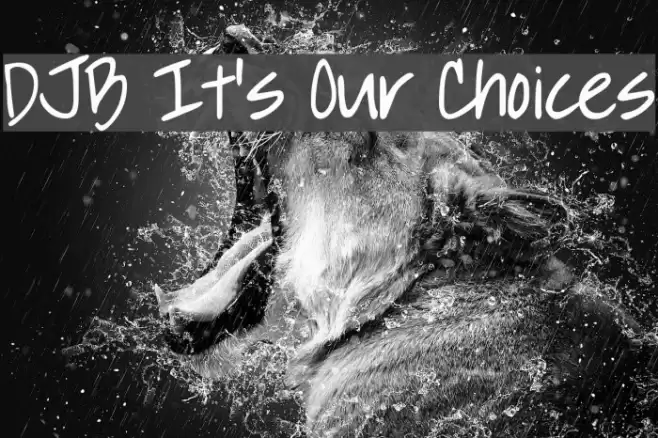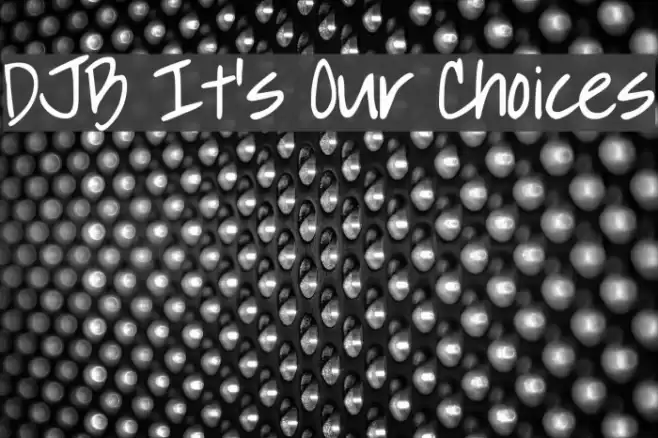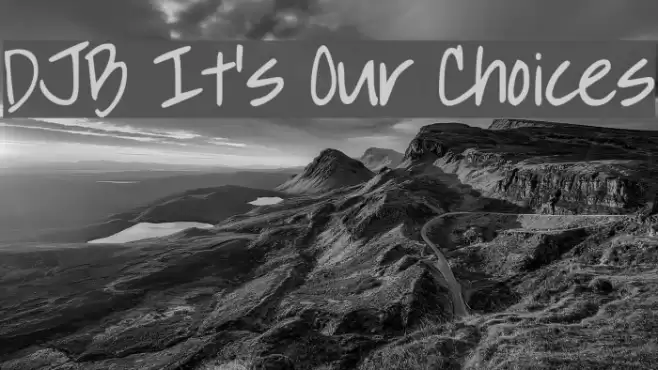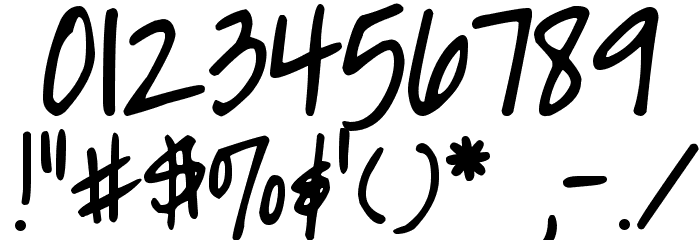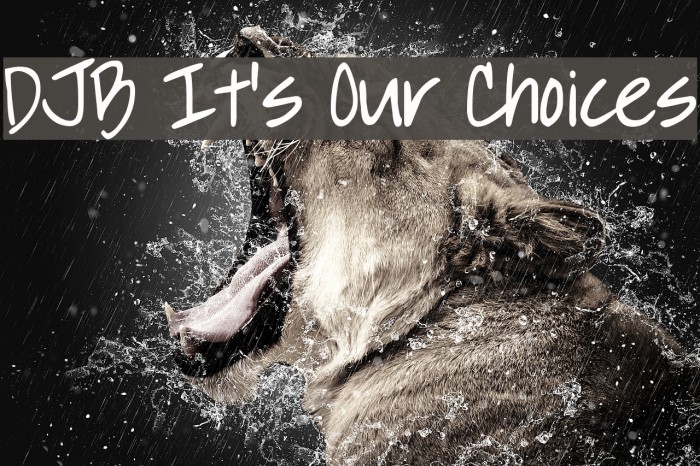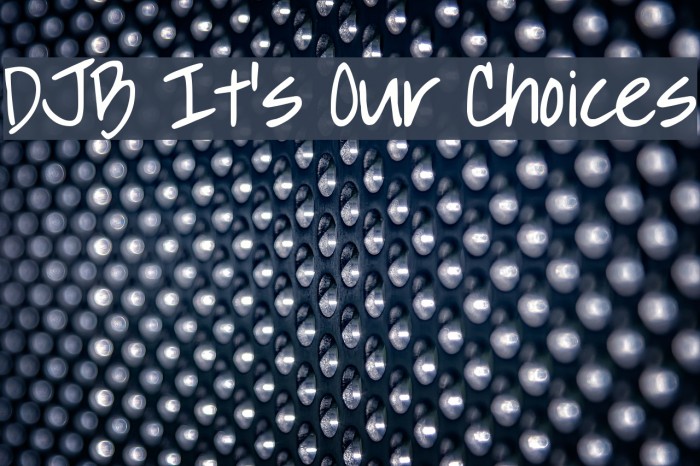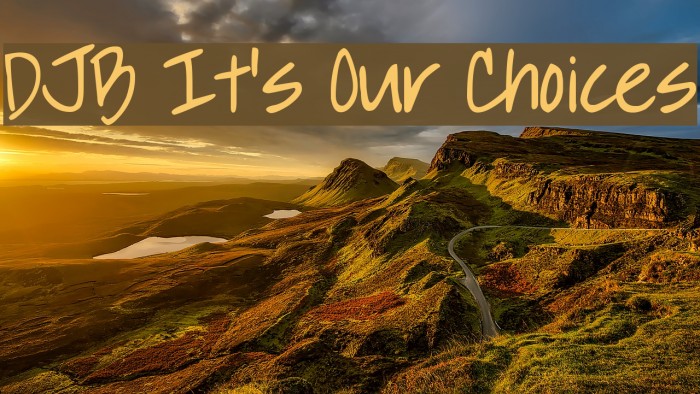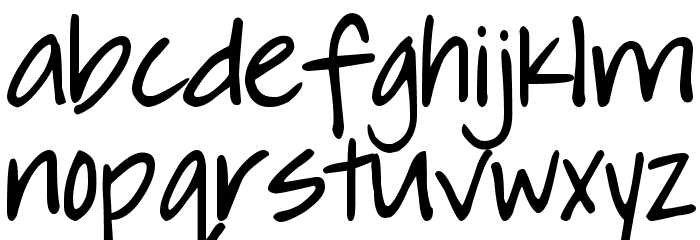
DJB It's Our Choices Font
DJB It's Our Choices Description
This font exudes a playful and casual handwritten style, characterized by its smooth, flowing lines and slightly irregular letterforms. Each character is crafted with a sense of spontaneity, giving it a personal and approachable feel. The uppercase and lowercase letters maintain a consistent height, while the numbers and special characters integrate seamlessly into the overall design. The strokes are moderately thick, providing a balanced weight that ensures readability without sacrificing its informal charm.
A playful, casual handwritten font with smooth, flowing lines from Uncategorized fonts.
- Proposed Projects: Ideal for personal projects, greeting cards, social media graphics, and informal branding.
- Overall Style: Casual
- Use Case: Headlines, Informal text, Personal projects